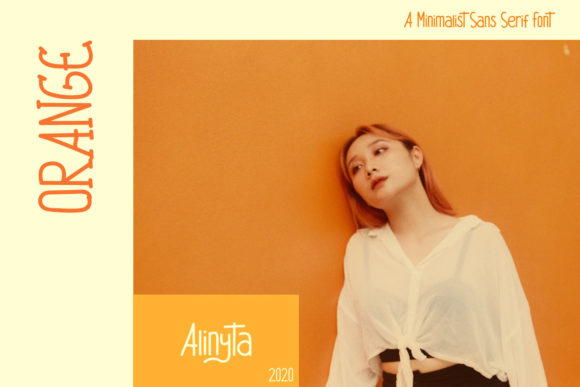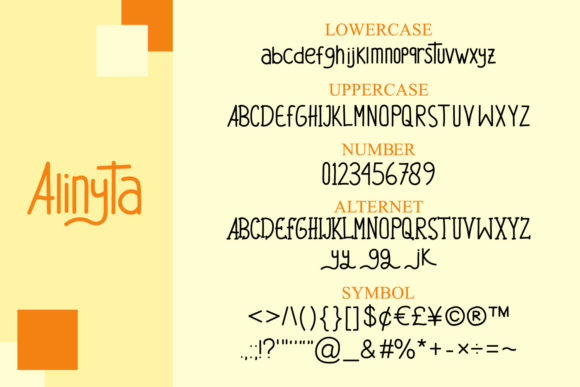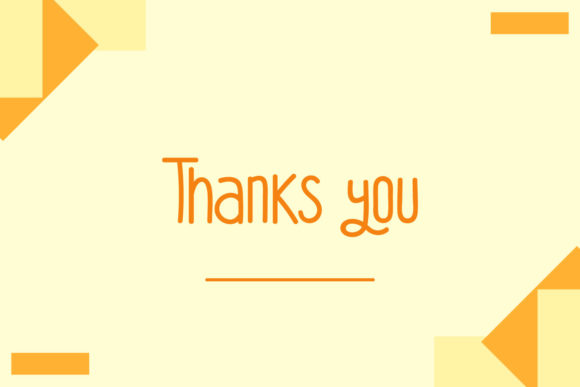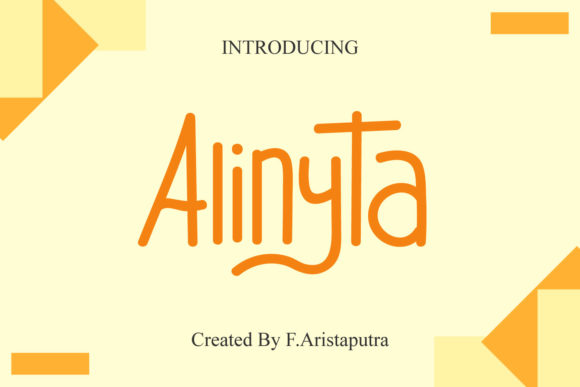
Introducing Alinyta Font: The Ultimate Minimal and Eye-Catching Handwritten Font
Are you a designer or crafter looking for a unique and versatile font to elevate your creative projects? Look no further than Alinyta Font, a stunning minimal and eye-catching handwritten font that is perfect for a wide range of applications. In this article, we’ll dive into the features and benefits of Alinyta Font, and explore how it can help take your branding, packaging, and designs to the next level.
A Font that’s Both Minimal and Eye-Catching
Alinyta Font is a beautifully crafted handwritten font that strikes the perfect balance between minimalism and visual impact. Its clean lines, simple shapes, and elegant curves make it a joy to use in a variety of contexts, from logos and branding to product packaging, invitations, and more. Whether you’re looking to create a bold statement or a subtle impression, Alinyta Font is up to the task.
Sans Serif and Serif Characters: The Best of Both Worlds
One of the standout features of Alinyta Font is its unique combination of both sans serif and serif characters. This versatility allows you to mix and match different styles to create a look that’s tailored to your specific needs. Whether you’re designing a modern and edgy logo or a more traditional and elegant invitation, Alinyta Font has got you covered.
Suitable for a Wide Range of Applications
Alinyta Font is an incredibly versatile font that can be used in a wide range of applications, including:
- Branding and logos: Create a lasting impression with a custom logo that showcases your brand’s personality and style.
- Product packaging: Add a touch of elegance and sophistication to your product packaging with Alinyta Font.
- Invitations and events: Make your invitations and event materials stand out with a beautiful and unique font.
- Quotes and posters: Use Alinyta Font to create inspiring and eye-catching quotes and posters.
- T-shirts and apparel: Add a stylish and modern touch to your t-shirts and apparel with Alinyta Font.
- Labels and stickers: Use Alinyta Font to create custom labels and stickers that showcase your brand’s personality.
Why Choose Alinyta Font?
So why choose Alinyta Font over other fonts on the market? Here are just a few reasons:
- Unique and eye-catching design: Alinyta Font is a one-of-a-kind font that is sure to grab attention.
- Versatile and adaptable: Alinyta Font can be used in a wide range of applications and contexts.
- High-quality design: Alinyta Font is designed to the highest standards, ensuring a professional and polished look.